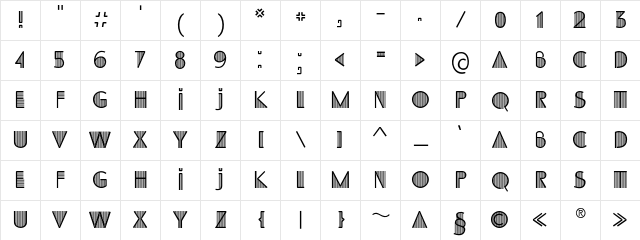
SS_Adec2.0_initials initials
Style: initials
SS_Adec2.0_initials Family
Design Context for SS_Adec2.0_initials
SS_Adec2.0_initials is a composed and adaptable typeface that performs quietly and consistently across a wide range of design contexts.